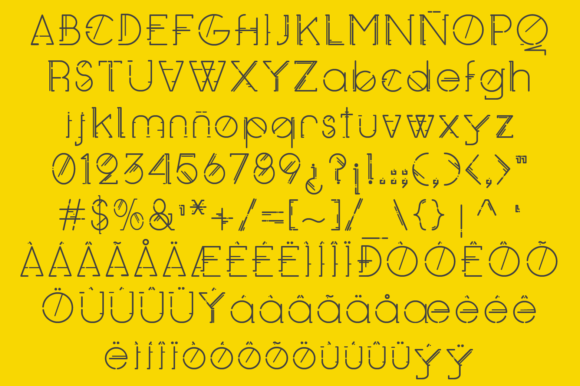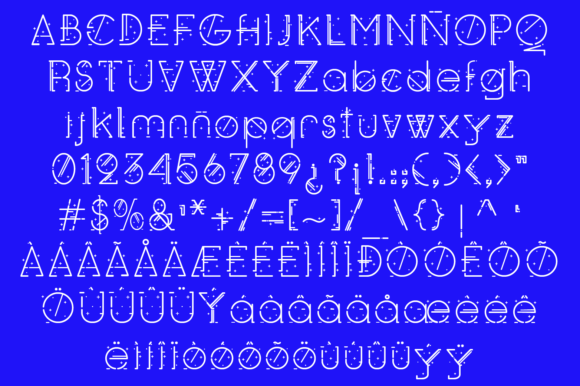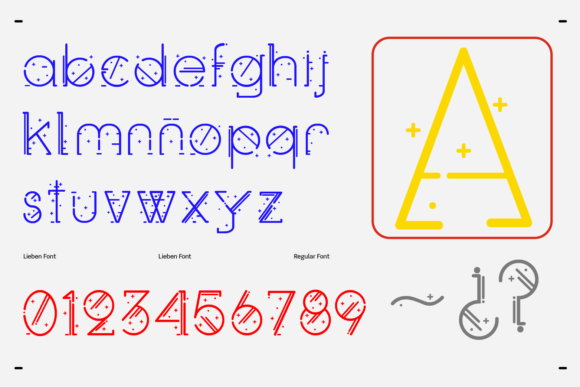
Introduction to Lieben Font
Lieben is an experimental and modern display font that comes in two distinct versions, regular and light.
Key Features of Lieben Font
Why Choose Lieben Font?
Lieben Font offers exceptional quality and versatility, making it a valuable addition to your design toolkit. Whether you’re creating for personal projects or commercial use, Lieben Font delivers professional results.